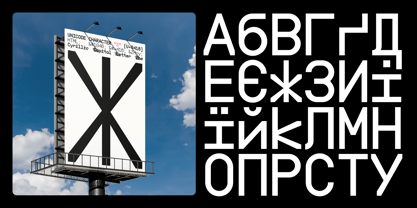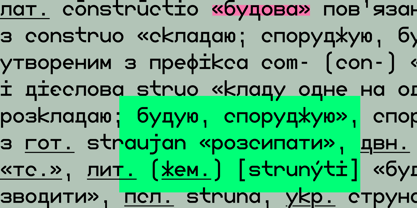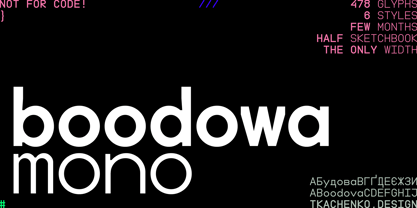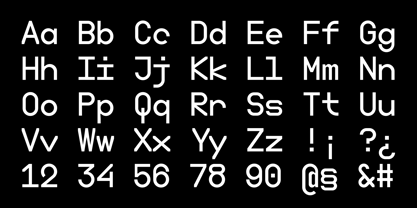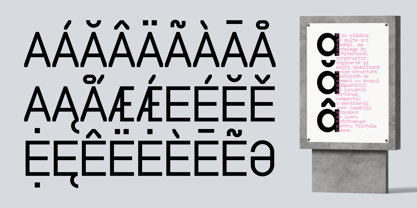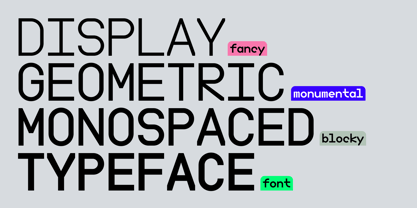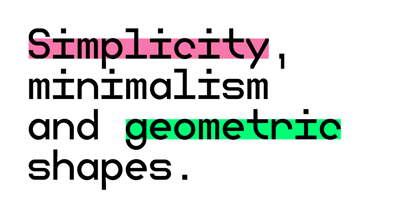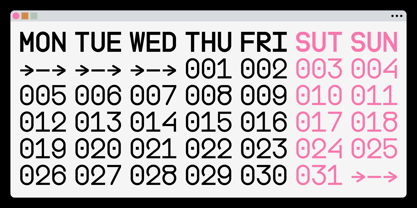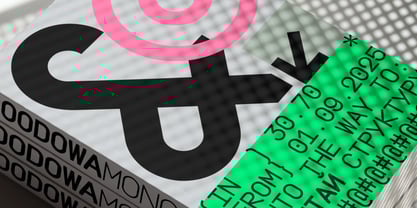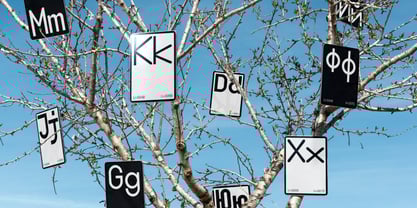
Boodowa Mono
by Tkachenko design
The Boodowa Mono Font Family was designed by Valentyn Tkachenko and published by Tkachenko design. Boodowa Mono contains 7 styles and family package options. More about this family
Boodowa (ukr. Будова) means structure, referring simultaneously to geometry and clear architectural forms. Boodowa Mono is a distinctive monospaced typeface created based on simple geometric shapes. The simplicity of these shapes dictates the appearance of each letter. Boodowa Mono combines clear geometry within the strict frames of a monospaced font.
Tkachenko Design, founded by Valentyn Tkachenko, is an independent type design studio based in Kyiv, Ukraine. The studio specializes in Cyrillic letterforms and experimental approaches to typeface design, while maintaining a broad and versatile creative scope. Each project is driven by a passion for exploring new visual languages and pushing the boundaries of conventional letterforms.Within every typeface, I strive to uncover fresh shapes for familiar letters, paying particular attention to the unique structure and rhythm of the Cyrillic script. This approach allows me to reimagine traditional forms while preserving their readability and cultural essence.